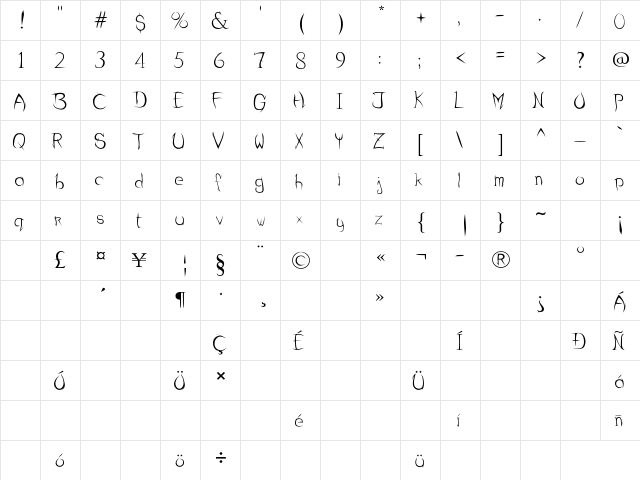
SharpCurve Regular Font Preview
SharpCurve Regular
Design Context for SharpCurve Typeface
SharpCurve is a composed and adaptable typeface that performs quietly and consistently across a wide range of design contexts.